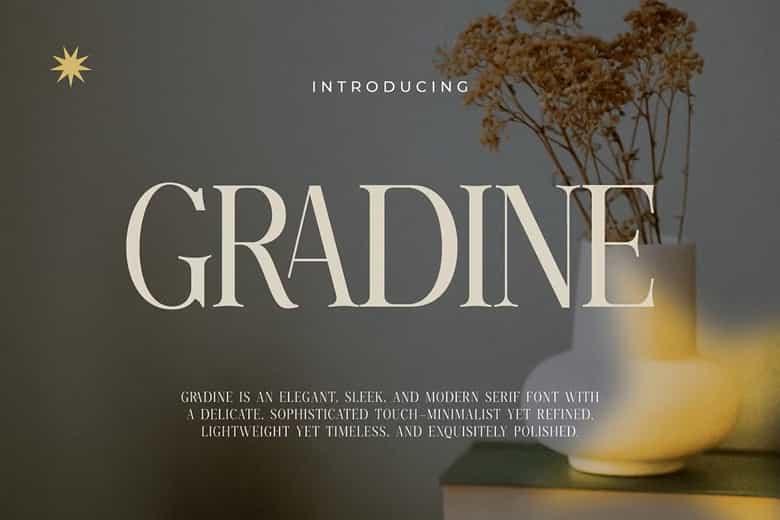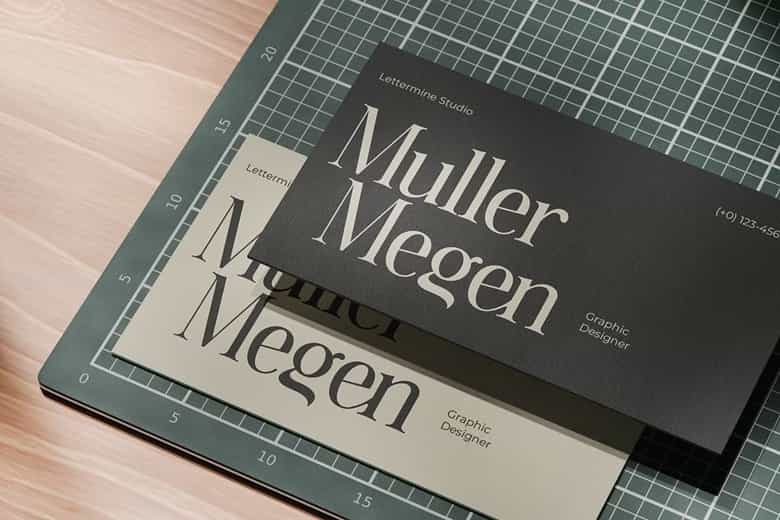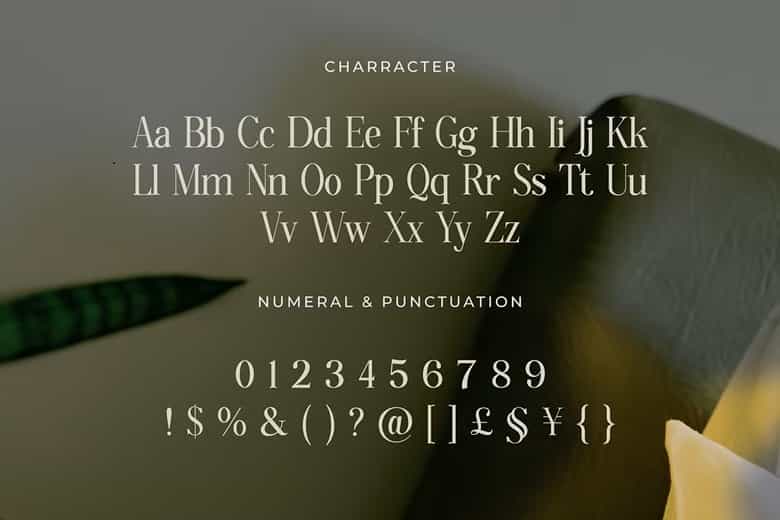
Gradine is a serif typeface and a luxury one that incorporates all elements of aesthetic beauty, elegance, and elegance of high society. It is created to have a high contrast stroke and elegant curves where every character precisely looks classy and exclusive.